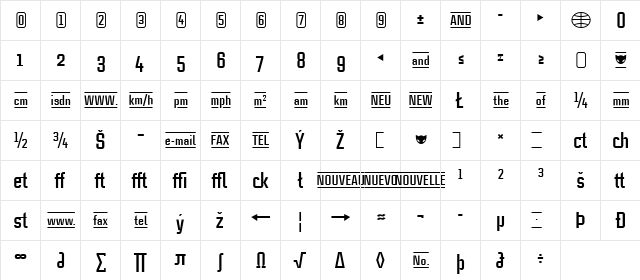
CaseStudyNoOne LT Bold
| Foundry | Linotype Library GmbH or its affiliated companies |
Design Context for CaseStudyNoOne LT Typeface
CaseStudyNoOne LT offers clean, dependable letterforms without strong stylistic allegiance, making it a practical choice for designers who need flexibility. The heavy weight commands attention and anchors typographic hierarchies.